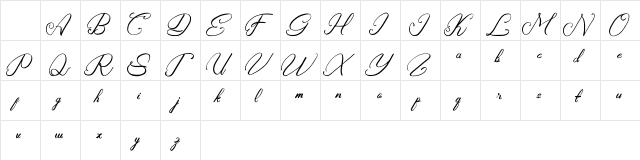
Rasyidin Regular
Design Context for Rasyidin Typeface
Rasyidin is a composed and adaptable typeface that performs quietly and consistently across a wide range of design contexts.
Pro Tip: Use Rasyidin in both headline and body roles to test its range before committing to a single application.